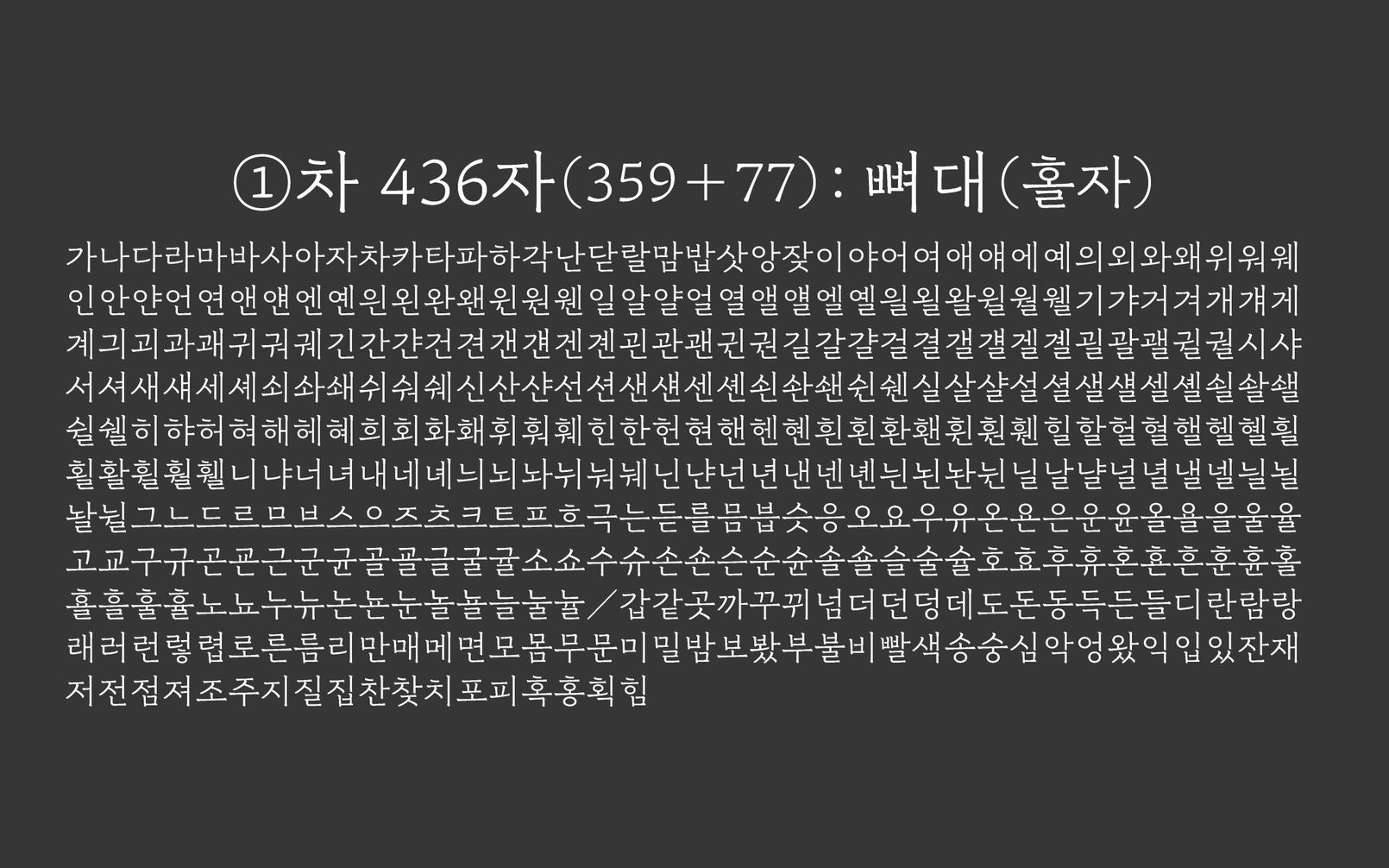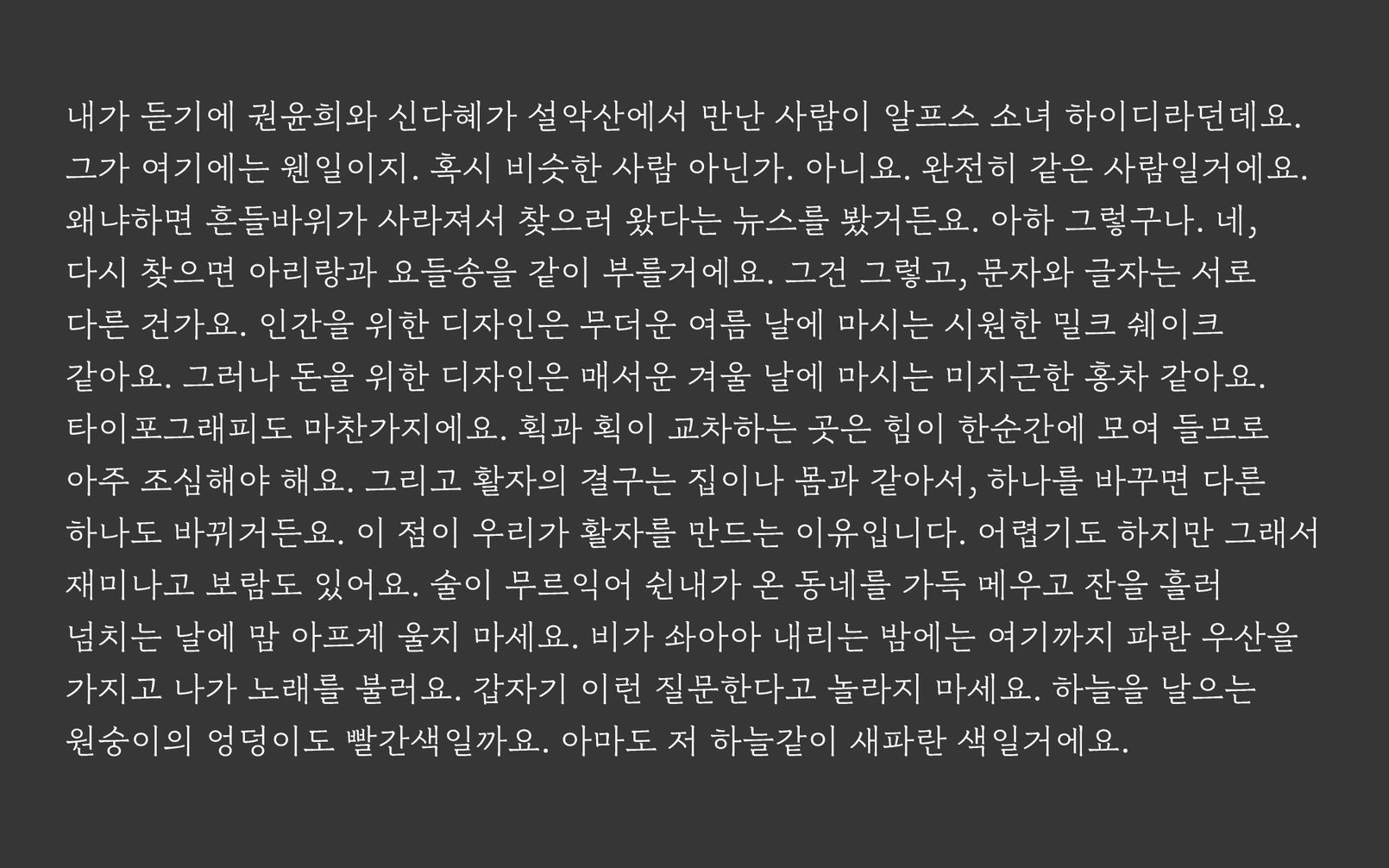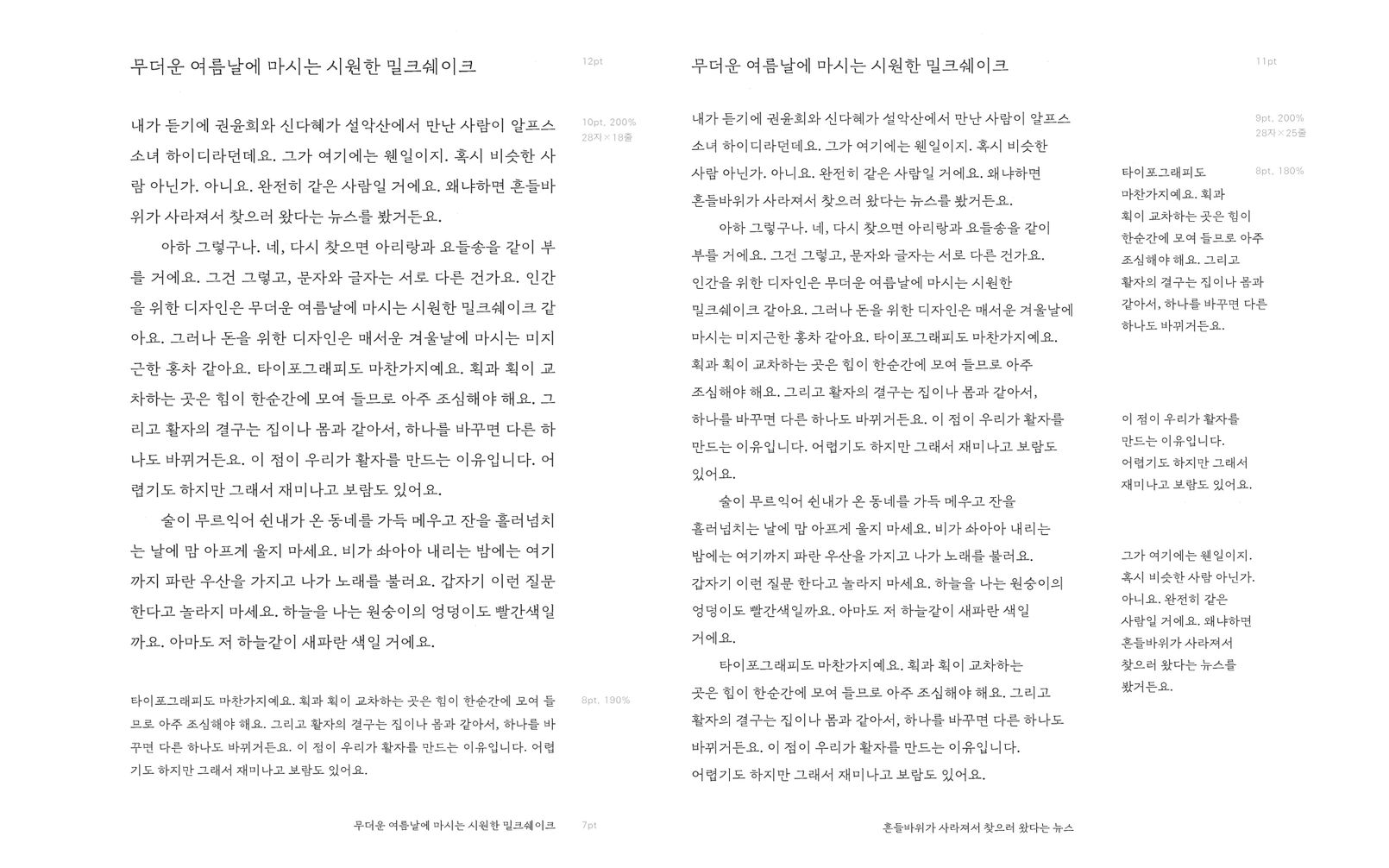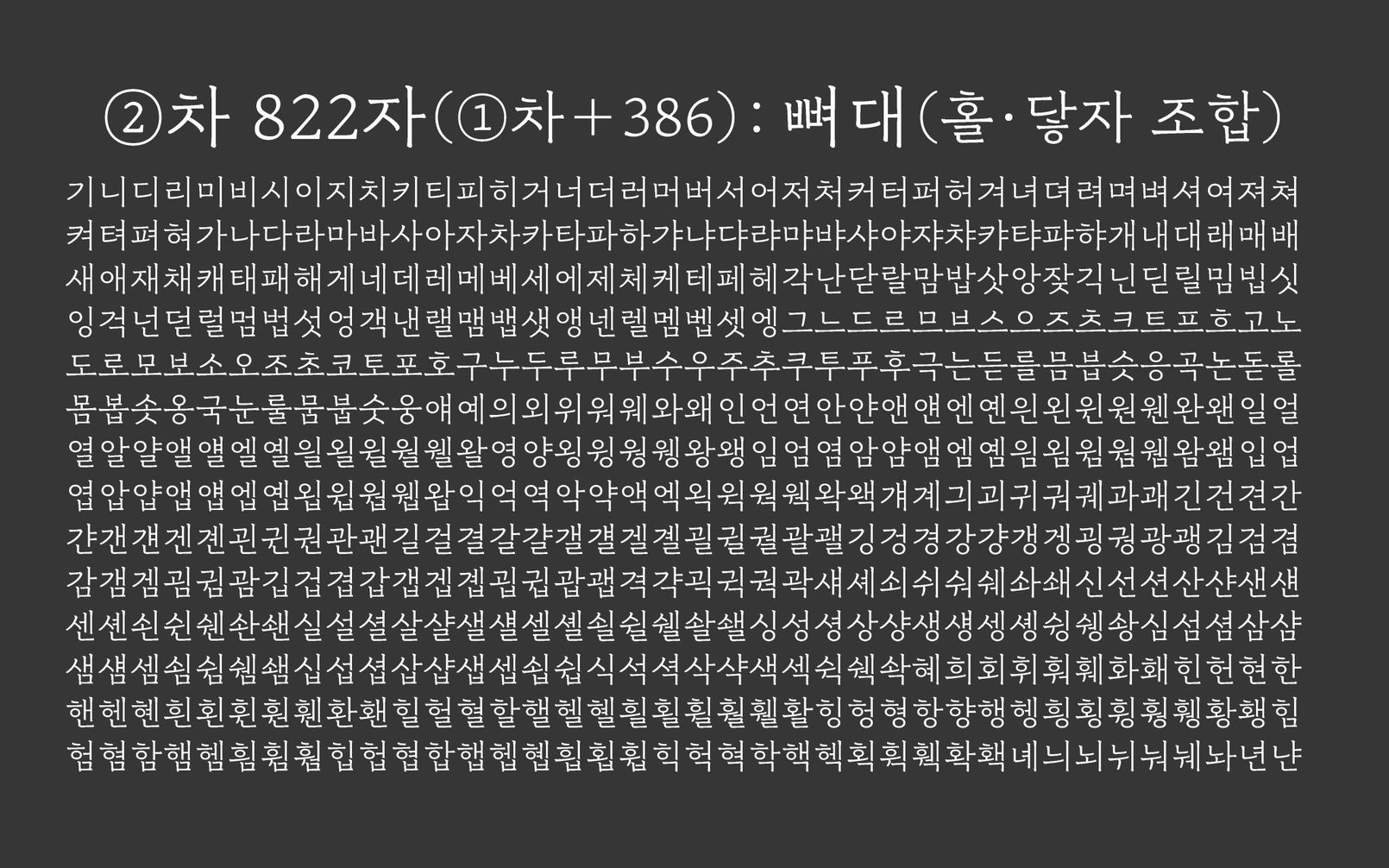
More Frightening Than Decay: The Fear of Never Decaying — The Story of 「Sandoll Jeongche」.
Fonts are broadly divided into display types and body types.
Body types are difficult to produce, require a long development period, and tend to be used continuously once adopted. For this reason, a large proportion of newly released fonts are display types. That said, foundries with a long history almost always possess at least one highly refined body type. A well-made body type is proof of a foundry’s history and tradition—it is a flagship model designed to be developed over a long period and sold over an equally long time.
A Long-Postponed Task Finally Surfaces
Through a user survey conducted on SandollCloud, Sandoll’s font platform, we received clear feedback indicating a lack of body text fonts. It was a task long acknowledged but repeatedly postponed, as it required a substantial investment of both budget and manpower. In the spring of 2017, accumulated guilt finally bore fruit, and a dedicated task force was formed.
Notably, the project director was not a font designer, but a typographer with extensive experience in printing, publishing, and typesetting. This was a deliberate decision. Rather than approaching the project from the perspective of someone who had made many fonts, we chose the perspective of someone who had used many fonts. This allowed for a meticulous examination of what a body type truly needs to fulfill. In effect, a long-time heavy user, reflecting on long-held dissatisfactions with Hangul typography, stepped directly into production.
Building a Team with Strangers
As the scale of a project grows, so does the burden on those responsible. To be honest, the dominant thought was not “I must do this well,” but rather “What if this fails?” Everyone involved was kind and supportive, yet the pressure was immense. I read Korean and Japanese calligraphy theory books indiscriminately, practiced brush writing whenever possible, and before going to sleep, watched calligraphy videos from Korea, China, and Japan. Once a conceptual direction was established, I created prototype fonts myself to test their validity. This process enabled smooth communication with veteran font designers. Failure felt like something from which it would be difficult to recover.
Next came team formation. When an external director works with designers they are meeting for the first time, what should come first? We decided to extract what each person held in their mind and establish a shared goal and vocabulary. The fastest and most effective method was a hands-on workshop—avoiding digital tools altogether. We talked, listened, wrote, and drew together, articulating our ideal body type structures, identifying differences in thinking, and gradually narrowing them. One workshop involved extracting the skeleton of the respected SM SeMyeongjo and rebuilding flesh upon it.
Concepts and formats designed to concretely visualize what each person considers an ideal body text font.
When drawn at a slightly larger scale, elements that were previously buried or hidden are revealed with stark clarity.
To draw at this scale requires a great deal of consideration. Completing a single sheet of paper took several days.
What matters here is not the result, but the process of refining one’s thinking itself.
Researching Glyph Density and Frequency
To create a font compliant with KS standards, 2,350 Hangul syllables must be designed. Understanding the identity of this character set felt essential before proceeding. We therefore analyzed glyph density and frequency. Density was calculated by assigning values to stroke lengths and summing them, while frequency was derived by decomposing the 2,350 syllables into jaso and tallying their positional occurrences (initial, medial, final). Initial consonants such as ㅇ, ㄱ, ㅅ, ㅎ, ㄴ appeared most frequently, while final consonants such as ㄴ, ㄹ, ㅇ, ㅁ, ㅂ, ㄱ dominated. This research allowed us to establish a clear priority for which glyphs to draw first—an indispensable step in creating a new process.
The analysis covered 2,350 characters, with each character given equal weight. However, it was necessary to identify which characters are used most frequently. Unfortunately, there was no way to determine which characters people use most often today.
A New Process: The Power of Short Iterations
To create something new, a new process is required. One cannot draw a forest after seeing only a single tree. Designing characters one by one makes it difficult to predict how they will behave in full sentences. The quality of a body type depends on how early the designer can begin reading continuous text. In conventional processes, typesetting tests occur only after many glyphs are completed, making meaningful revision difficult. Since revision effort scales with glyph count, we instead selected approximately 460 key characters—core glyphs plus particles and endings—and wrote text using only those. Because literature is a common use case for body types, we wrote a short, fictional narrative. With so few words available, the result resembled a four-dimensional fantasy novel.
First, Second, and Third Refinement
By drawing a few hundred characters, typesetting them, reading the result, and revising it repeatedly, the font gradually takes shape. This process could be described as test-driven development, agile methodology, or iteration. Since the text is composed of only a few hundred characters, the task at this stage is simply to design. However, it is crucial to remember that the characters will inevitably look crude at this point, and the moment one gives in to the urge to refine them, the entire development plan begins to unravel.
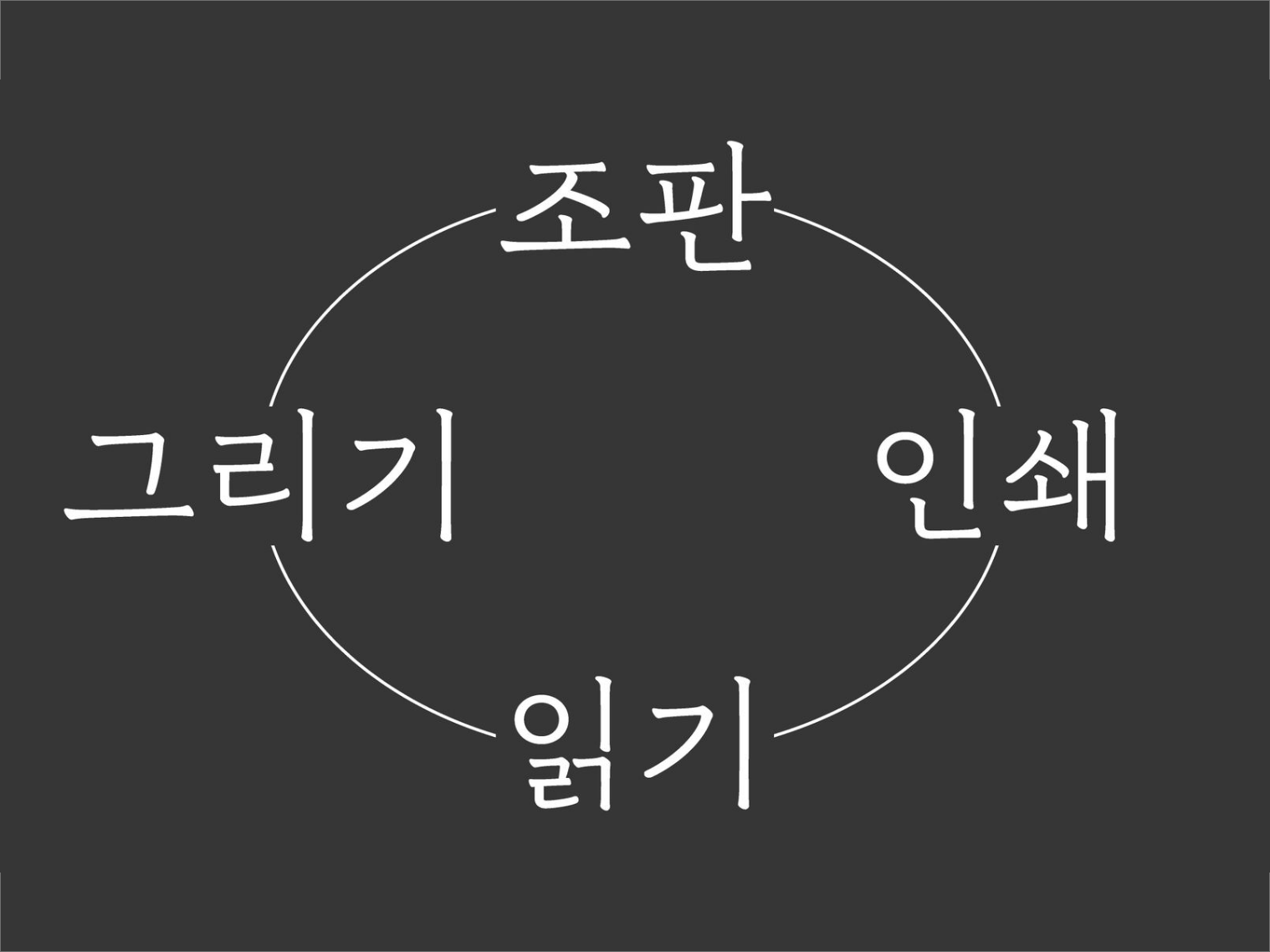
At Sandoll, there exists—often unspoken—an implicit lower bound: “it must be at least this good.” (There is no need to define an upper bound.) A realistic and flexible mindset—that the world can be made more beautiful simply by not being ugly—has naturally become a philosophy. This is because, over the past 38 years, we have experienced little by little that fonts truly can make the world more beautiful. Having done this collectively and consistently, we may have sensed it slightly earlier than others. I would like to share this quietly sweet feeling with you as well.